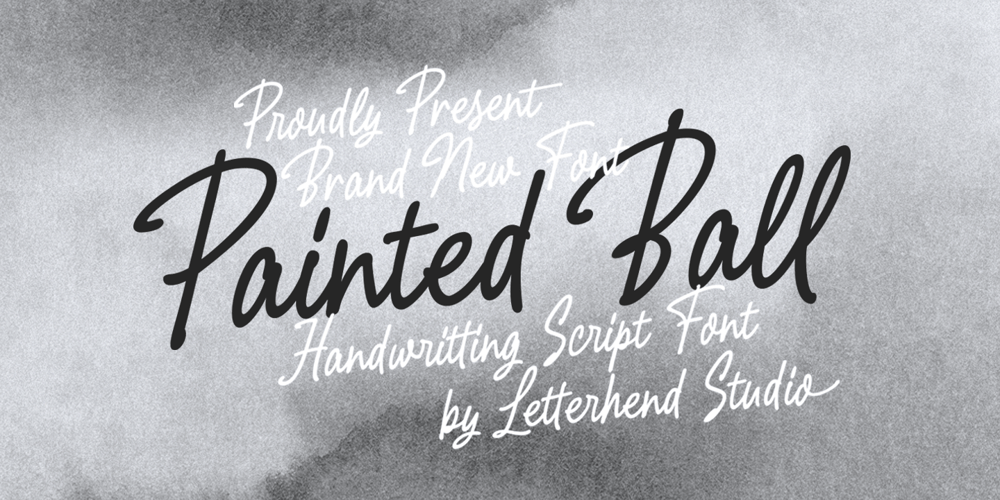
Painted Ball
Painted Ball font
Painted Ball Font Family was designed by Hendry Juanda and published by Letterhend. Painted Ball contains 1 styles and family package options. Painted Ball – a monoline script with natural handwritting feel. This type of font perfectly made to be applied especially in logo, headline, signage and the other various formal forms such as invitations, labels, logos, magazines, books, greeting / wedding cards, packaging, fashion, make up, stationery, novels, labels or any type of advertising purpose.Features : uppercase & lowercase numbers and punctuation multilingual alternates / swashes and ligatures PUA encoded We highly recommend using a program that supports OpenType features and Glyphs panels like many of Adobe apps and Corel Draw, so you can see and access all Glyph variations.